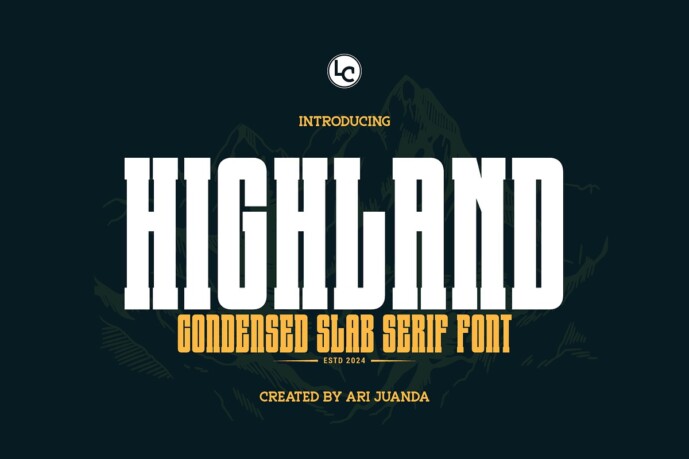
Highland Font
Designer: Linecreative
Highland is a condensed slab serif font suitable for art, modern envelope lettering or book design, trending styles like hand drawn design or watercolor design theme, craft design, any DIY project, book title, wedding font, vintage pop design, or any purpose to make our art/design project look beautiful and trendy.